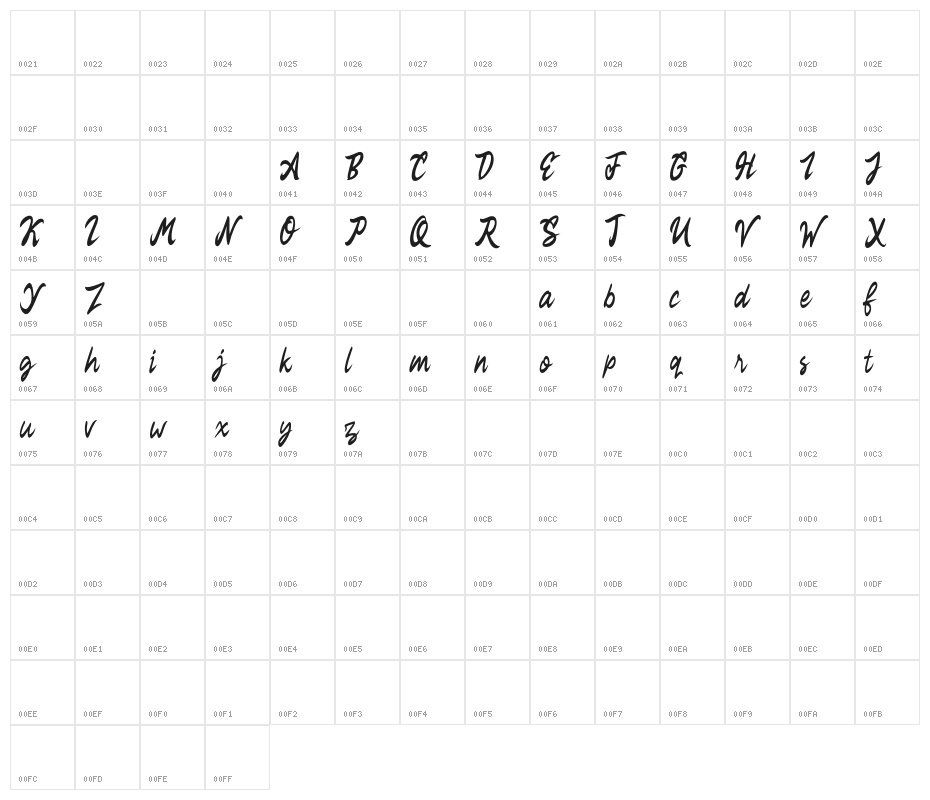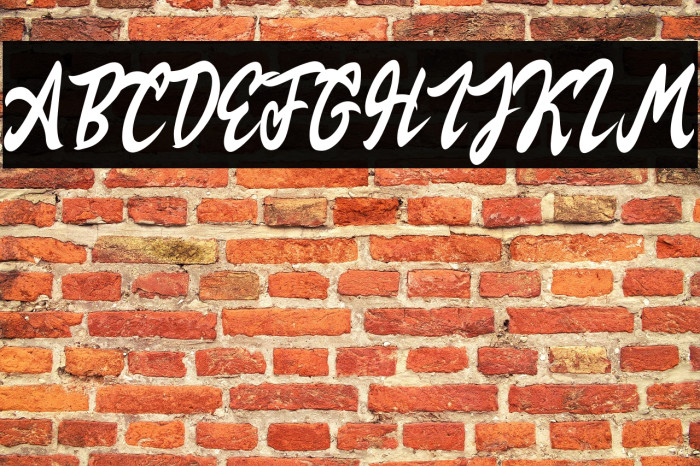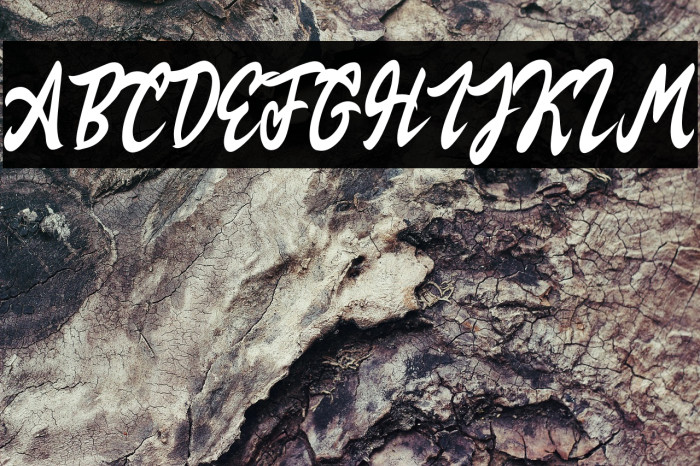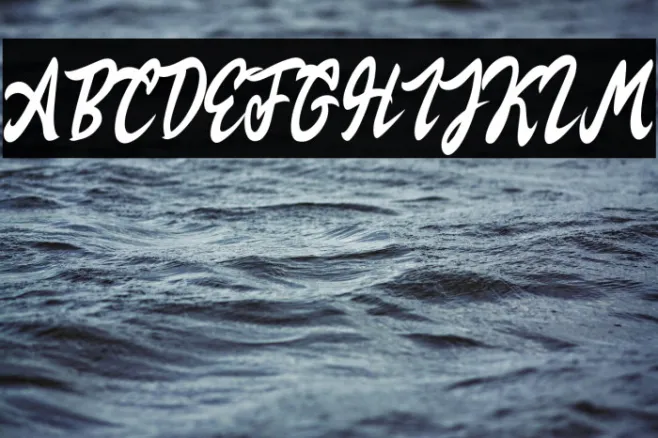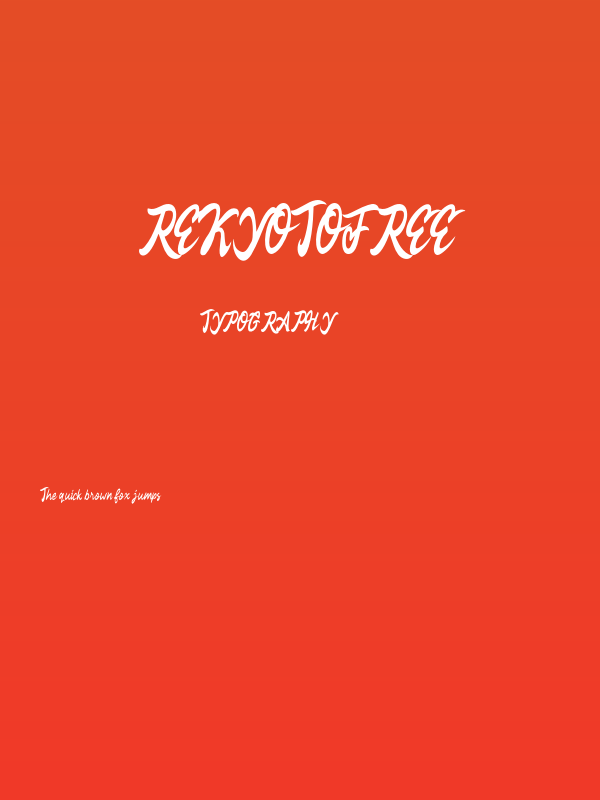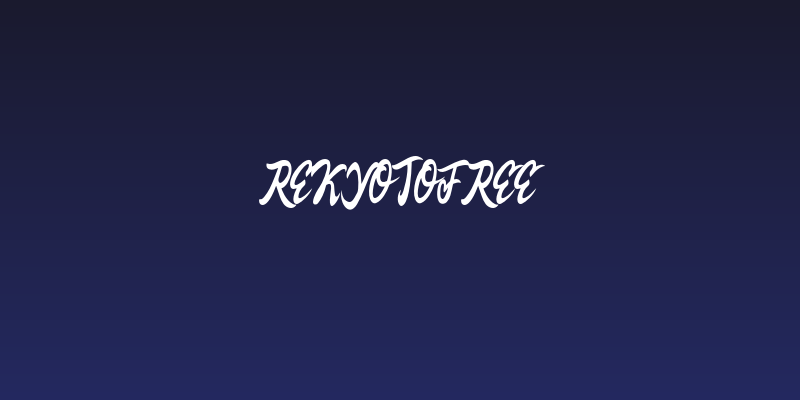
RekyotoFREE Font
RekyotoFREE Description
This font features a dynamic and flowing script style, characterized by its elegant and cursive letterforms. The uppercase letters are bold and sweeping, with a slight slant that adds a sense of motion and grace. The lowercase letters maintain the same fluidity, with smooth connections between characters that enhance readability. The strokes are moderately thick, providing a strong presence while maintaining a delicate appearance. This font's design is reminiscent of traditional calligraphy, yet it incorporates modern elements that make it suitable for contemporary use. The overall aesthetic is both sophisticated and approachable, making it versatile for various design applications.